43 Stunning Quote Fonts to Add Poetic Authority in 2026
Quote fonts are the unsung typographic heroes that can make a short line linger in a reader’s mind. In this guide, we present 43 handpicked options spanning serif warmth, script flourish, and modern sans restraint to fit social posts, editorial spreads, and book epigraphs.
Alongside each recommendation you’ll find pairing tips, contrast strategies, and accessibility notes so your quotation typography, citation typefaces, and quote mark styling work across screens and print. Read on to match mood to message and elevate your quoted lines with confidence.
1. Vintage Magazine Font
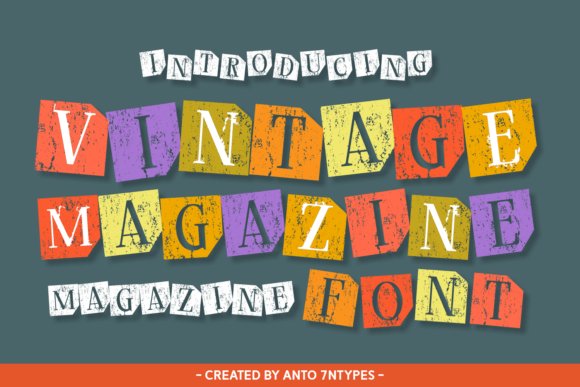
Vintage Magazine is a handcrafted display face that captures the tactile thrill of ransom-letter collages while remaining surprisingly refined; its uneven baselines, mixed weights and paper-cut counters create an immediacy that commands attention in short bursts. Because each letter reads like a found object, it excels at emphatic headlines, poster pull-quotes and packaging badges where a retro, rebellious voice is needed and where traditional serif or sans treatments would feel polite.
Use it when you want quotation typography to feel like a physical discovery-it pairs beautifully with textured backgrounds and minimal body text to avoid visual clutter, and as an expressive option among Quote fonts it gives quotations a scrapbooked, human touch that’s hard to replicate digitally. Designers will appreciate how the font’s irregular rhythm adds motion to layouts, turning ordinary captions and social tiles into conversation starters.
My Recommendation: I’d reach for Vintage Magazine when a project needs personality over polish-its ransom-cut charm injects warmth and handmade authenticity into album covers, indie zines, retro packaging and Instagram quote tiles. It’s especially useful when you want text to read like a found artifact rather than a corporate message. Use sparingly at large sizes for maximum impact and pair with cleaner secondary type to keep readability high.
2. Romeo Chunky Font
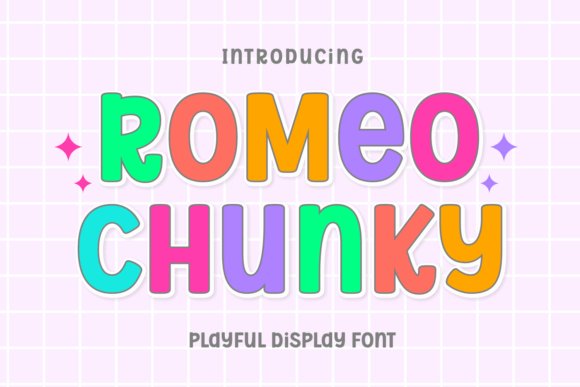
Romeo Chunky is a bold, rounded display type with generous counters and a friendly, contemporary silhouette that reads clearly at both large and medium sizes; its sturdy forms make it ideal for headlines, signage and apparel branding that require instant legibility. The face’s approachable geometry gives logos and magazine covers a confident, warm tone while its weight range supports layered treatments like shadowing and embossing without losing clarity.
Designed with versatility in mind, this type shines in craft packaging, promotional posters and web hero panels where tactile presence matters; its simple shapes work well for sublimation printing and merchandise, and the built-in multilingual characters broaden its applicability. If you need a headline voice that balances playfulness and authority, Romeo Chunky offers a reliable, modern option that scales across print and digital channels.
My Recommendation: I use Romeo Chunky when a project needs an upbeat, no-nonsense headline that remains readable on everything from t-shirts to transit ads. Its friendly heft and clean curves make brand lockups and greeting-card covers pop, while also surviving heavy production finishes. For any application that benefits from bold clarity and an amiable personality-think packaging, posters and social banners-this is a go-to choice.
3. Cupid Crazy Font
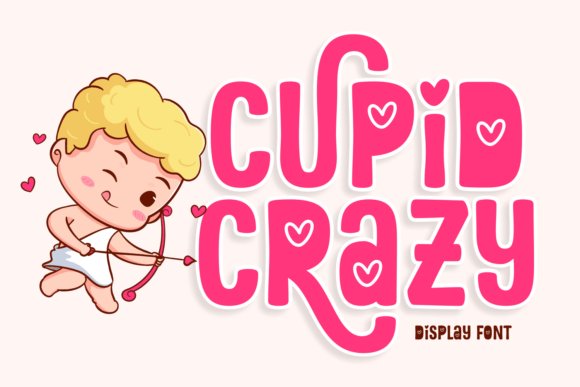
Cupid Crazy blends playful swashes and rounded terminals into a display face that radiates warmth and whimsy, ideal for romantic branding, seasonal campaigns and playful editorial work. Its loops and heart-tipped strokes create a lively rhythm that enhances short lines of type-perfect for greeting-card headlines, love-themed posters and magazine callouts that need emotional specificity.
The font’s light-hearted forms pair well with soft color palettes and illustrative artwork, lending charm to apparel prints, social graphics and book covers aimed at younger or design-forward audiences. When you want quotation lettering to feel affectionate rather than formal, Cupid Crazy delivers a flirtatious, expressive option that brightens layouts without overpowering supporting text.
My Recommendation: I’d reach for Cupid Crazy on any brief that calls for character and warmth-Valentine’s Day campaigns, children’s books, boutique packaging and playful logos are natural fits. Its decorative swashes add personality without sacrificing readability in short lines, so it’s great for headlines and merchandise prints. Pair it with a neutral sans for body copy to keep designs balanced and readable.
4. Smart Memory Font
Smart Memory is a refined humanist sans that blends crisp geometry with gentle, feminine curves to create an approachable yet elegant texture on the page. Its open counters and moderate contrast deliver crisp headlines and sustained readability for body use alike, and it pairs especially well with Quote fonts and ornamental punctuation to lift pull-quotes and social media captions.
These 43 selections give you a broad palette of styles to match any emotional tone or design need – from intimate handwritten scripts to strong, authoritative serifs. Use the pairing and contrast tips to ensure your quotes read clearly and convey the intended feeling.
Keep this roundup handy as a reference when styling pull-quotes, captions, or epigraphs; the right quotation typeface can turn a sentence into a memorable moment. Test a few options on real content and refine size, weight, and spacing for the best results.